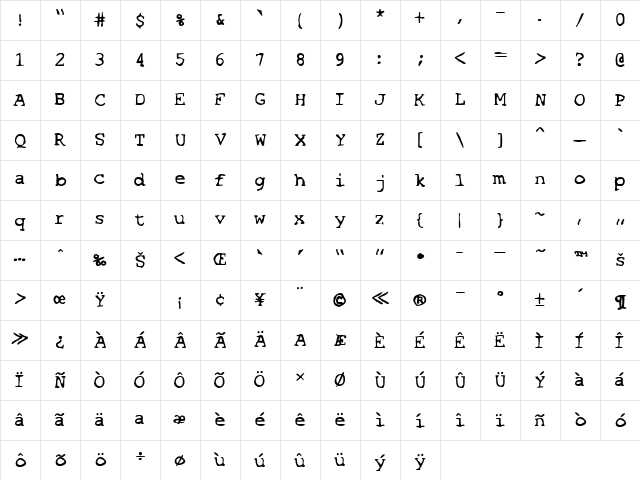
SF Espionage Medium Regular
SF Espionage Medium Family
SF Espionage Medium Regular
Design Context for SF Espionage Medium
SF Espionage Medium is a composed and adaptable typeface that performs quietly and consistently across a wide range of design contexts.